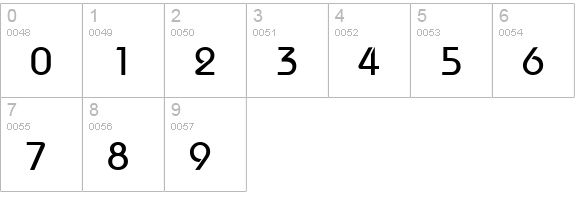
BordeauxMedium Regular is the standard, neutral variant in the BordeauxMedium typeface family \xE2\x80\x94 well suited to general body text, paragraphs, and standard typographic work.
BordeauxMedium Regular is a timeless and versatile font that exudes elegance and sophistication. Its classic yet modern design makes it the perfect choice for a wide range of design projects, from branding to editorial design. With its balanced proportions and clean lines, BordeauxMedium Regular is easy to read and adds a touch of refinement to any layout. Best of all, BordeauxMedium Regular is available for free download at FontsMarket.com. This means you can easily access this high-quality font without any cost, making it a valuable addition to your font library. Whether you're a professional designer or a casual user looking to enhance your projects, BordeauxMedium Regular is a fantastic choice that combines style and accessibility. Download it today and elevate your designs with this exceptional typeface.